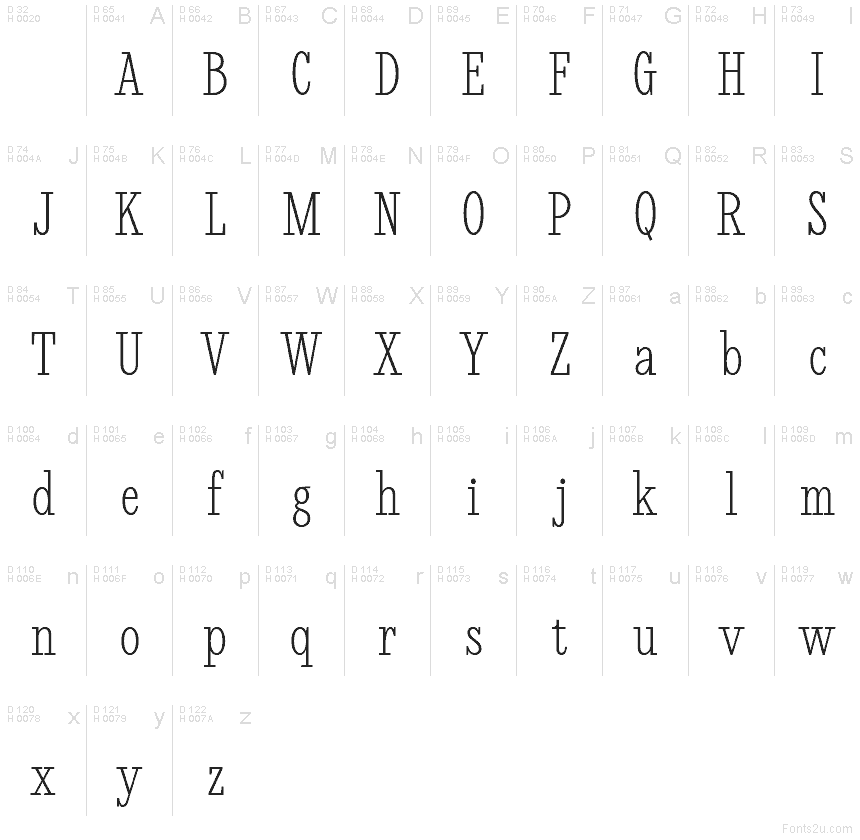
CS Somers Regular Demo
CS Somers font is a condensed serif typeface designed by Craft Supply Co. Elegant, sophisticated, classic, and with high contrast, this formal font exceeds its limits with astonishing - and dreamy - designs waiting to appear on client projects. This selection of uppercase characters matches different styles while staying highly professional every time.
CS Somers Demo